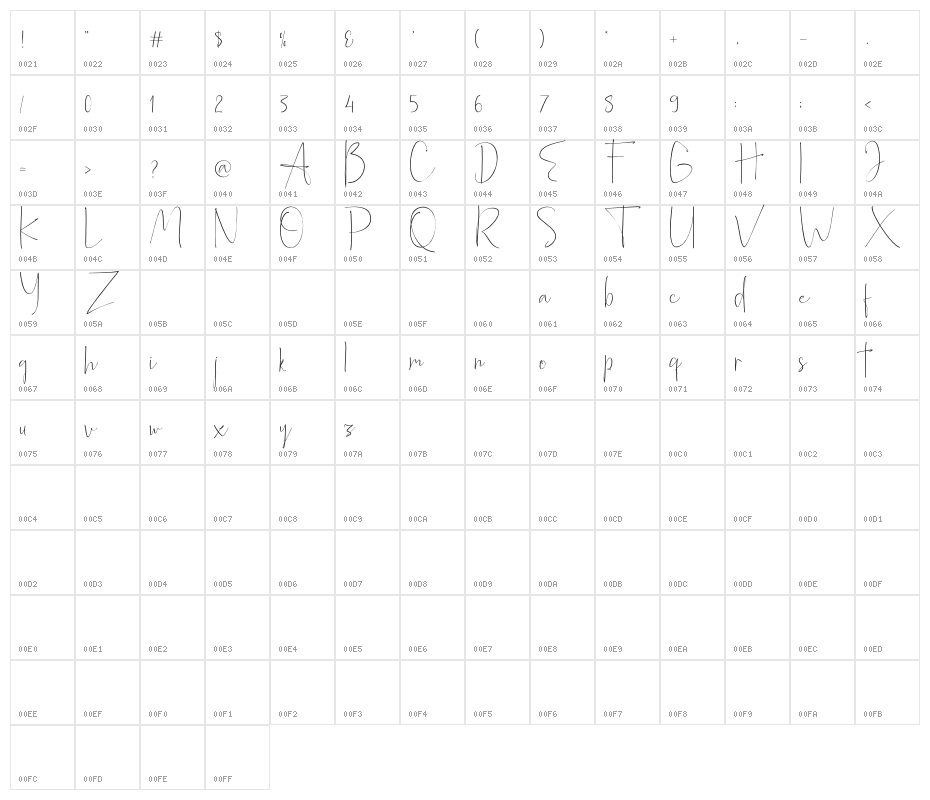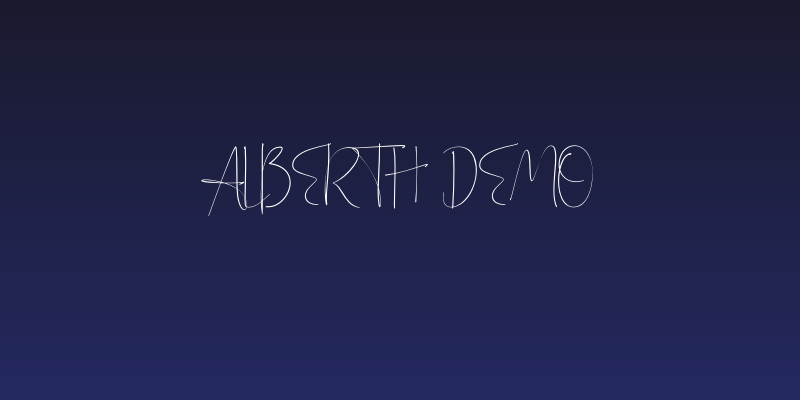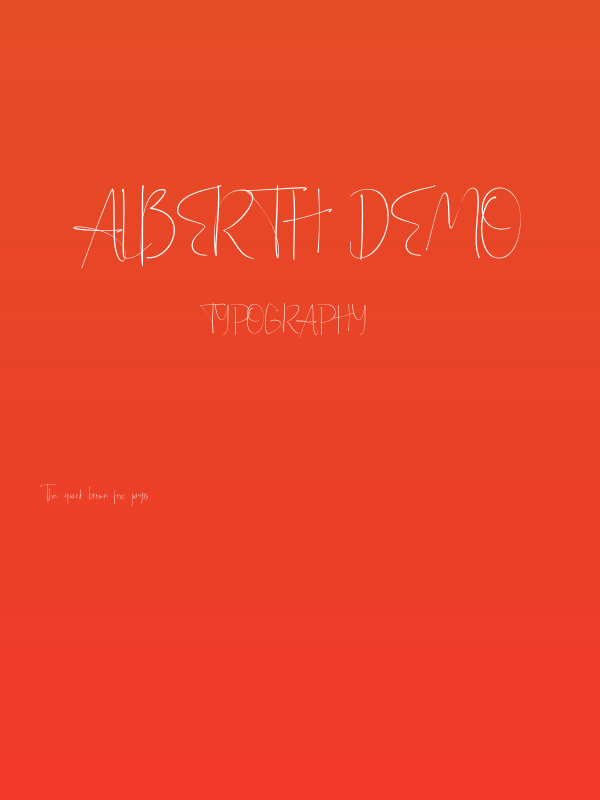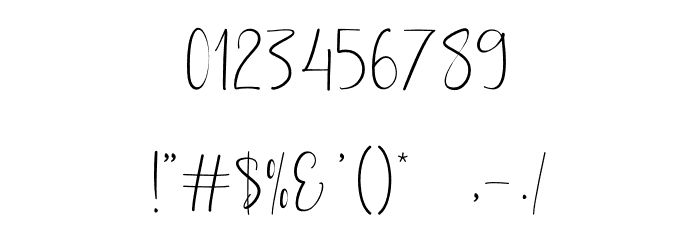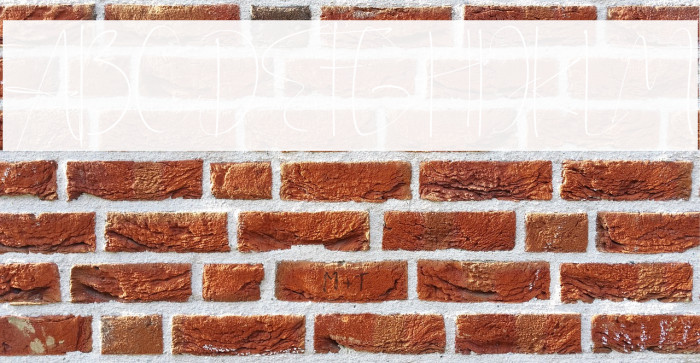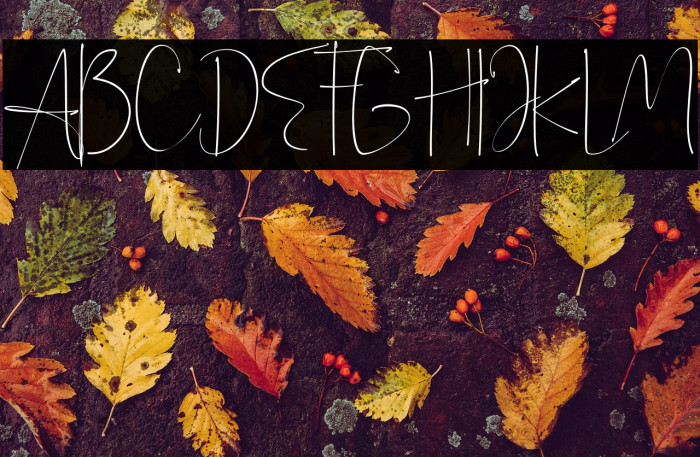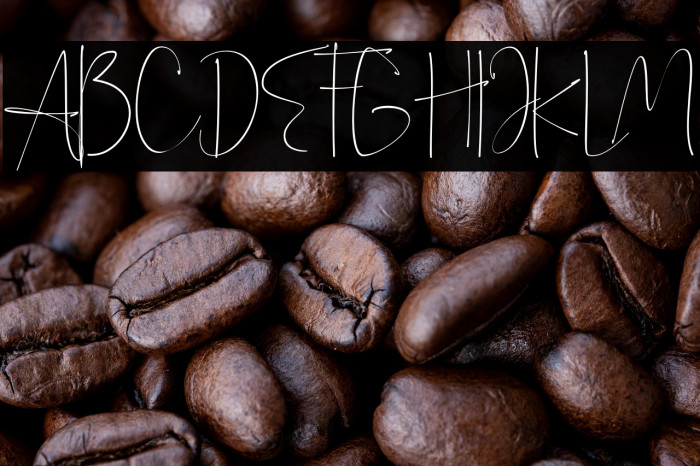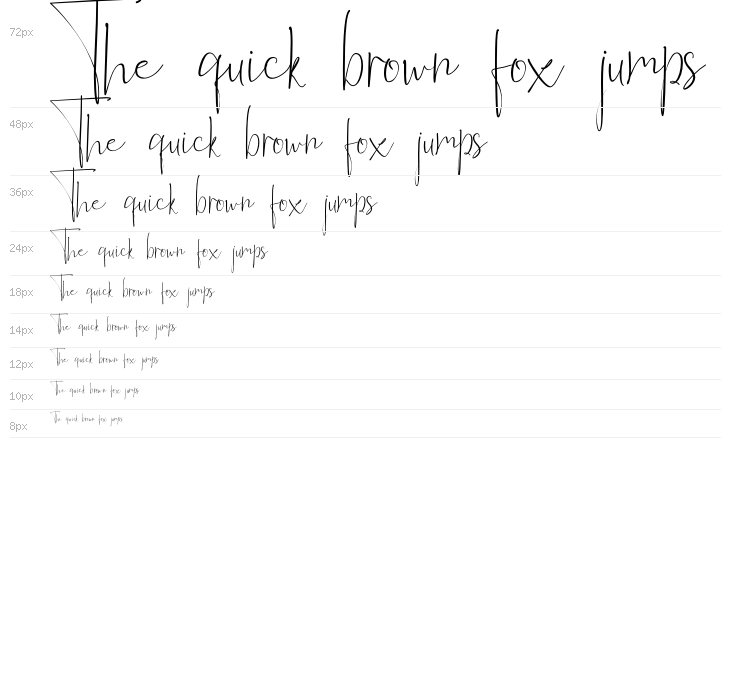
Alberth Demo Font
Alberth Demo Description
This font exhibits a playful and whimsical handwritten style, characterized by its tall, narrow letterforms and irregular strokes. The uppercase letters are particularly elongated, giving a sense of elegance and fluidity. The lowercase letters maintain a consistent flow, with some letters featuring unique loops and curves that add to the font's charm. The numbers and special characters follow the same stylistic approach, ensuring a cohesive look across all elements. The overall appearance is casual yet sophisticated, making it suitable for creative and artistic projects.
| Proposed Projects | Ideal for greeting cards, invitations, personal branding, and artistic projects that require a touch of elegance and creativity. |